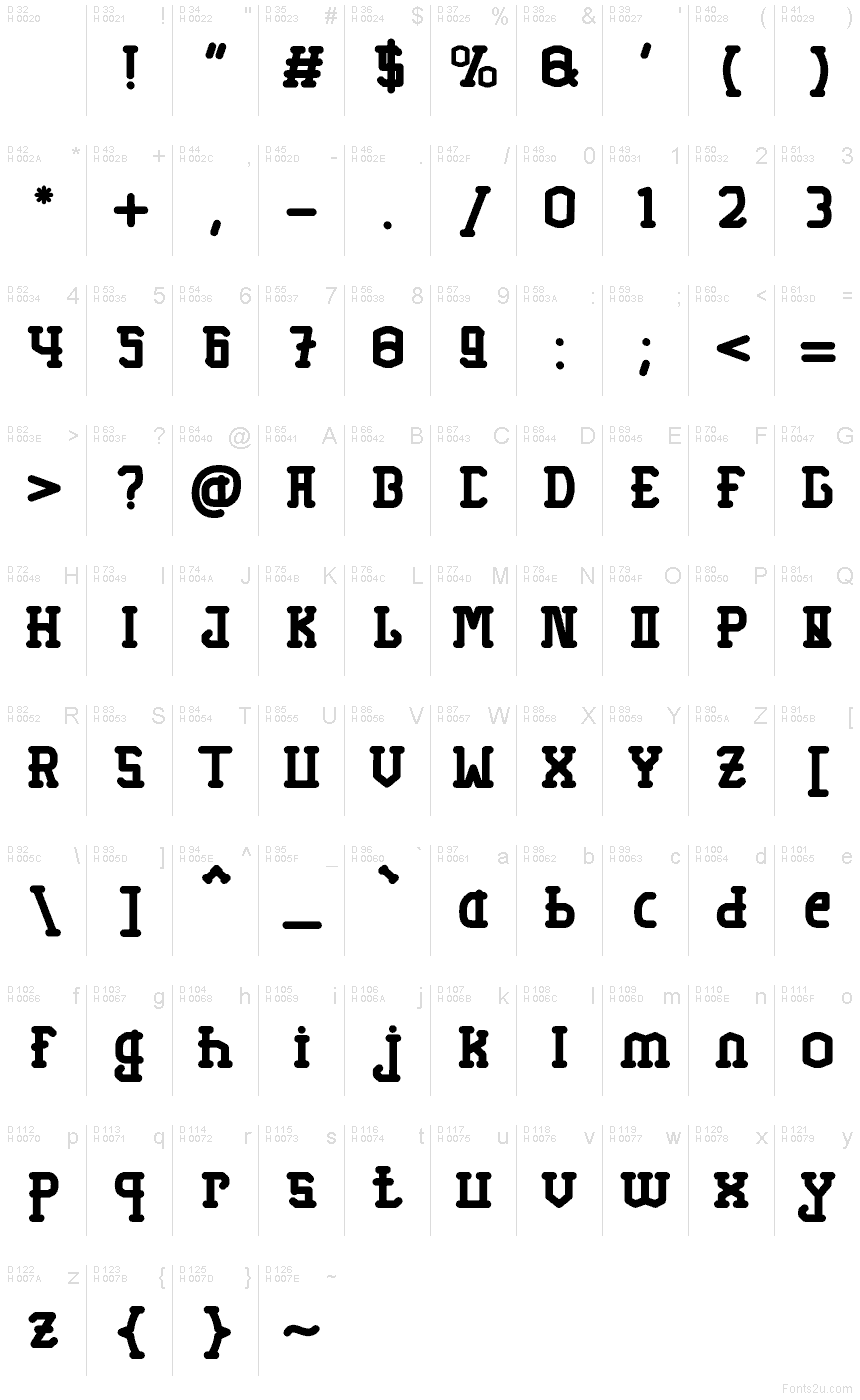
Groome
Groome font by Dhabee Studio is a free decorative display typeface with a bold, blocky charm and soft, bubbly footing along the baseline. Its chunky, almost modular letters feel like they’ve been chiseled from thick foam—angular on the inside, rounded on the outside—giving every word a playful, toy-like weight. The rhythm is dense and confident, so even short titles feel substantial and memorable.
Using Groome, you get a headline voice that instantly reads as fun, friendly, and a little retro. This free font shines on kids’ branding, game titles, candy or snack packaging, poster headlines, YouTube thumbnails, and characterful logos. For balance, pair Groome with a clean geometric sans for body text and keep Groome large so its sculpted counters and rounded bottoms have room to breathe.